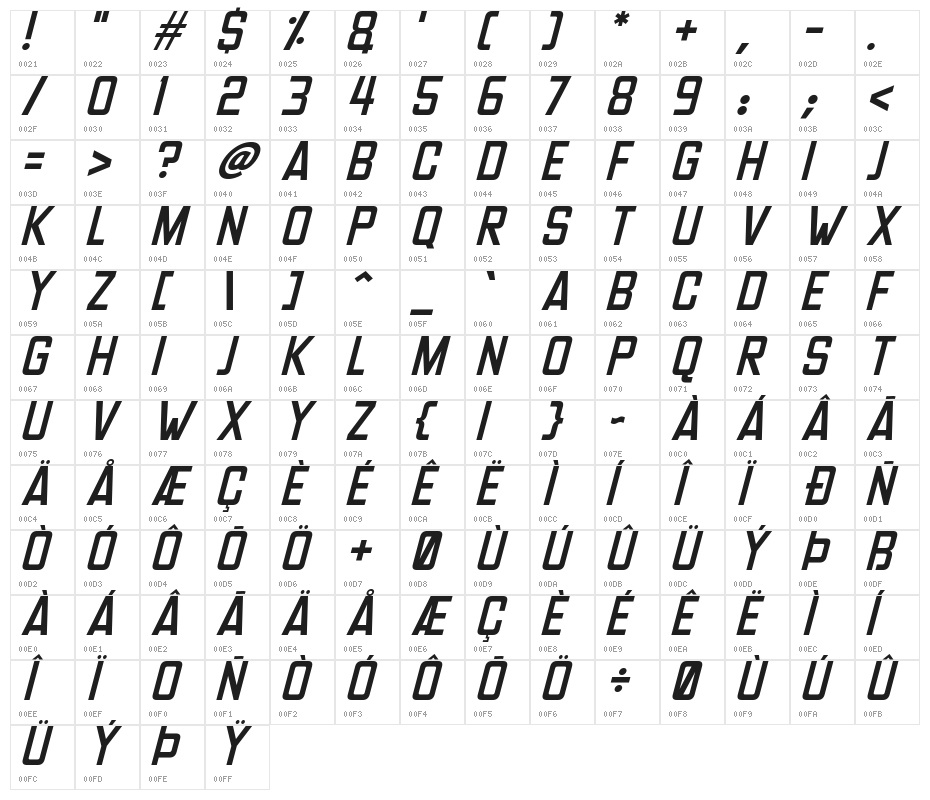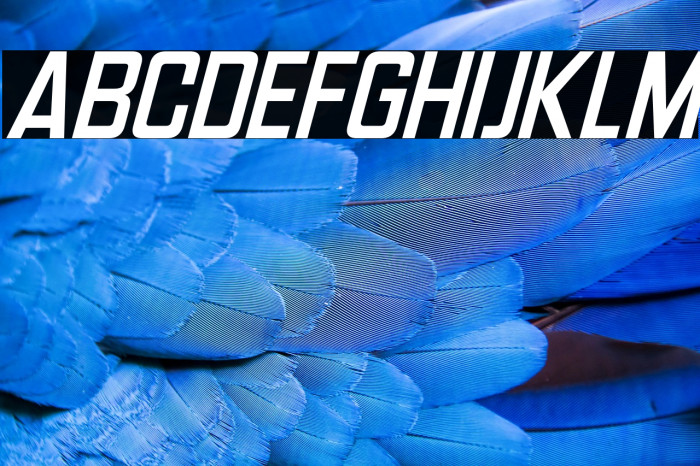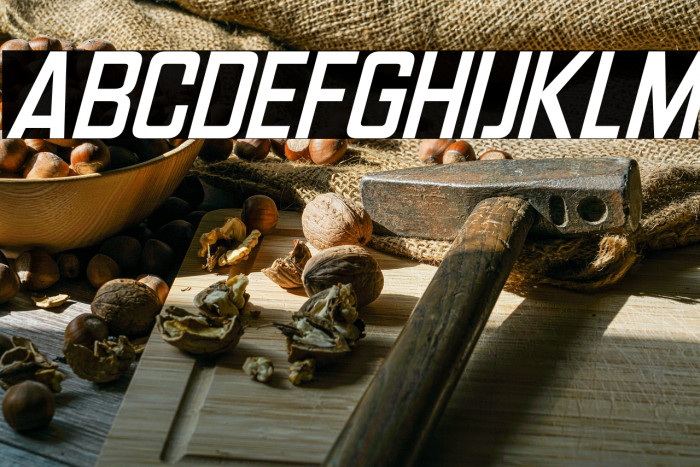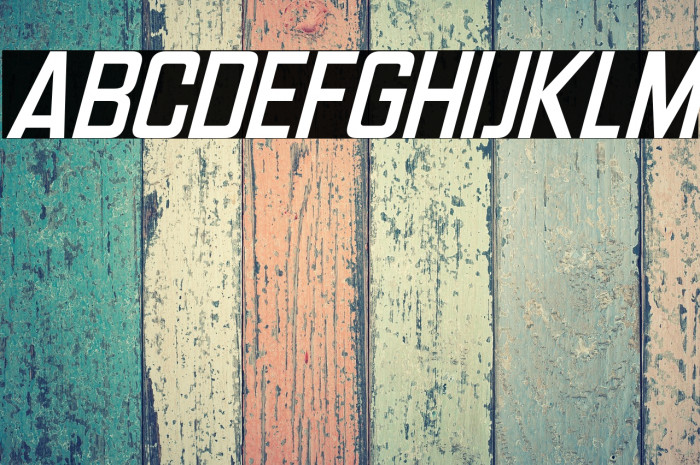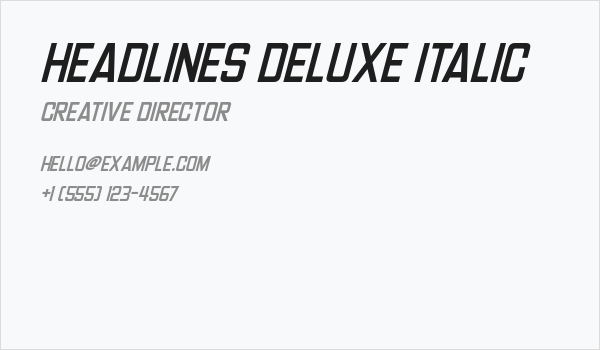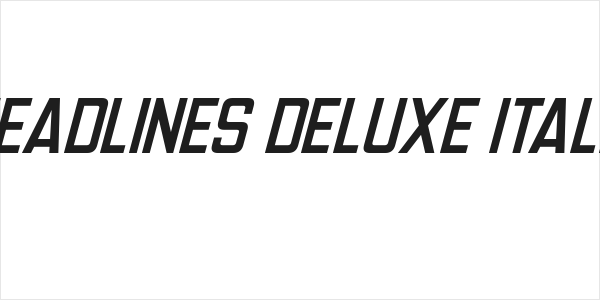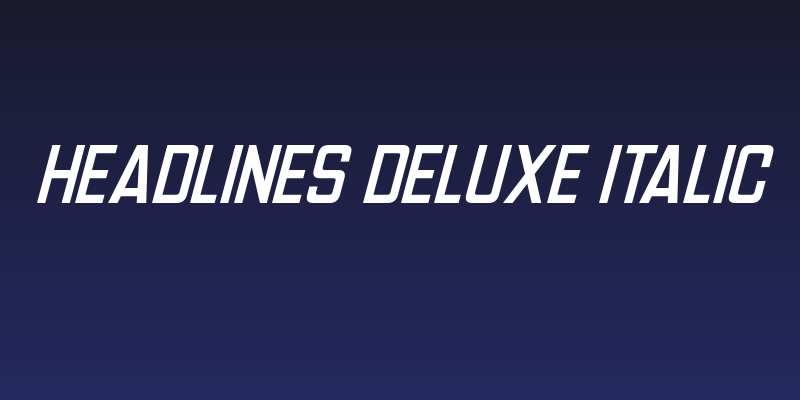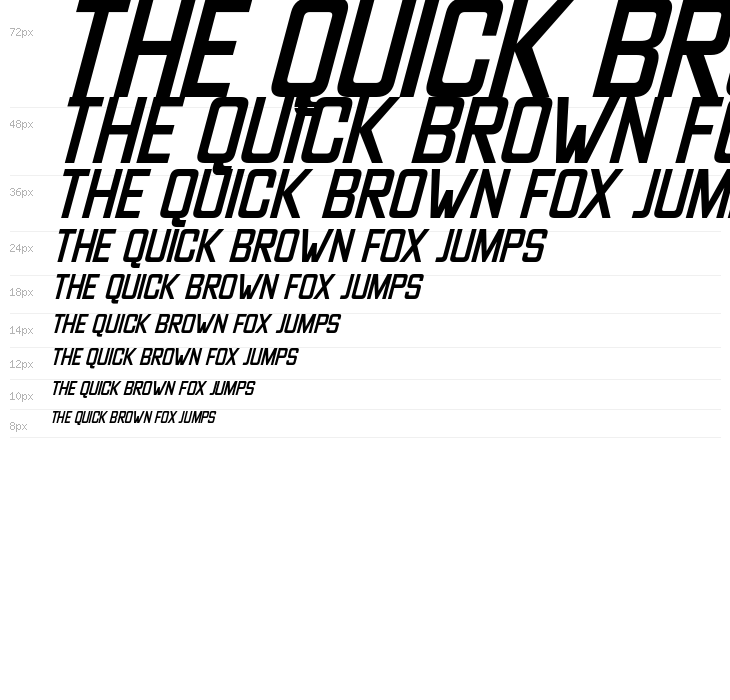
Headlines Deluxe Italic Font
Headlines Deluxe Italic Description
This font features a bold, italicized style with a modern and dynamic appearance. The characters are slightly condensed, giving a sleek and streamlined look. The strokes are consistent in weight, providing a uniform and cohesive appearance across all letters and numbers. The slanted design adds a sense of motion and energy, making it ideal for attention-grabbing headlines and titles. The uppercase and lowercase letters maintain a geometric structure, while the numerals and special characters are designed to complement the overall aesthetic. This font is well-suited for projects that require a contemporary and impactful visual presence.